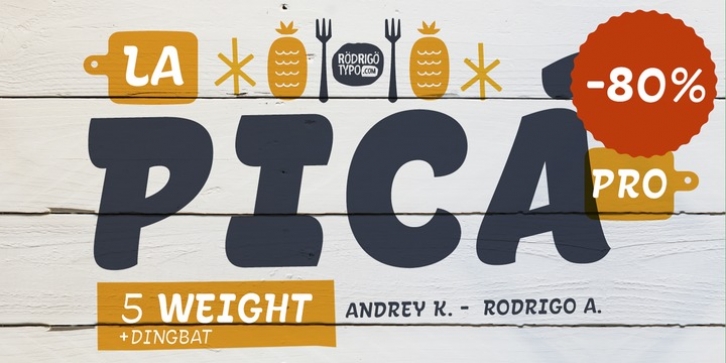
Publisher: RodrigoTypo
The Pica Pro, a sans font, is a redesign of La Pica. This version includes the family set, Light, Regular, Bold, Black, Dense, plus a set of dingbat, perfect for entertaining titles with a lot of personality